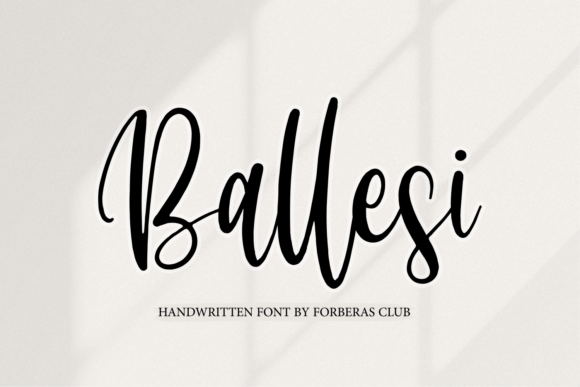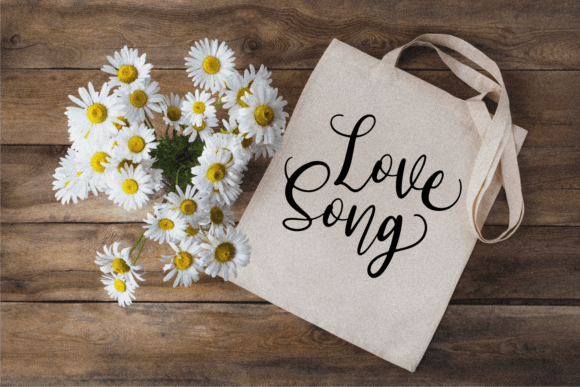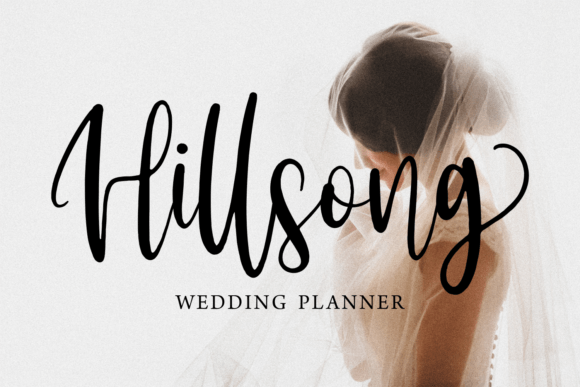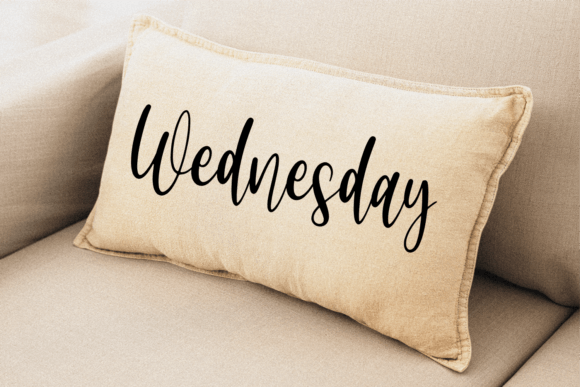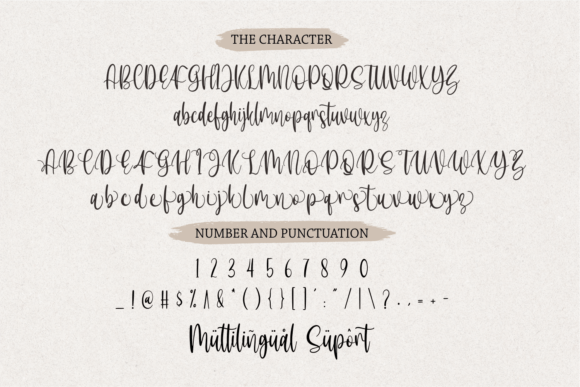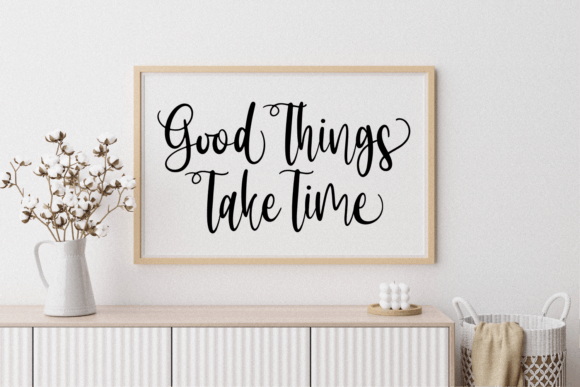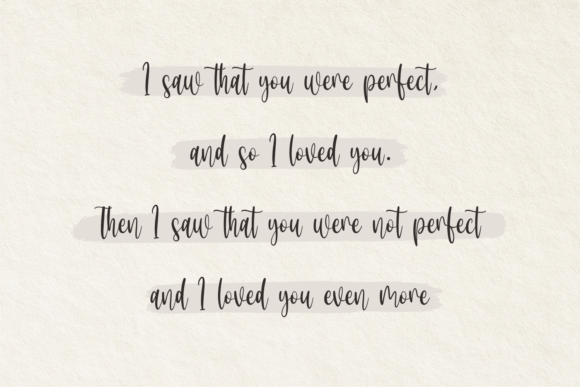
Ballesi Font
Ballesi Handwritten Font – Elegant and Flowing Typeface
The Ballesi Handwritten Font is a graceful and timeless script designed to elevate your projects with elegance. With its flowing handwritten strokes and stylish appearance, it brings a refined touch to any design. Whether you’re working on invitations, posters, or logos, this font ensures your creations stand out beautifully.
A Script with Timeless Elegance
The Ballesi Handwritten Font combines smooth handwritten curves with balanced proportions, resulting in a stylish yet highly readable look. Its elegance makes it perfect for professional branding, while its flowing style ensures it feels warm and personal in creative projects.
One of the most popular uses of the Ballesi Handwritten Font is in invitations and greeting cards. Its elegant strokes add sophistication to wedding stationery, thank-you notes, and romantic cards. At the same time, it adapts seamlessly to posters, quotes, and social media graphics where a handwritten style adds character.
The Ballesi Handwritten Font works well across a wide range of projects. From branding and product packaging to event signage and decorative posters, it provides a handwritten charm that feels polished and timeless. Its flexibility makes it a must-have for both digital and print designs.
Why Designers Love Ballesi Font
Designers love the Ballesi HandwrittenFont because it strikes the perfect balance between elegance and usability. Its flowing strokes make it ideal for romantic designs, while its clarity ensures it can also be used for professional branding. This balance of style and practicality makes it an essential addition to any creative toolkit.